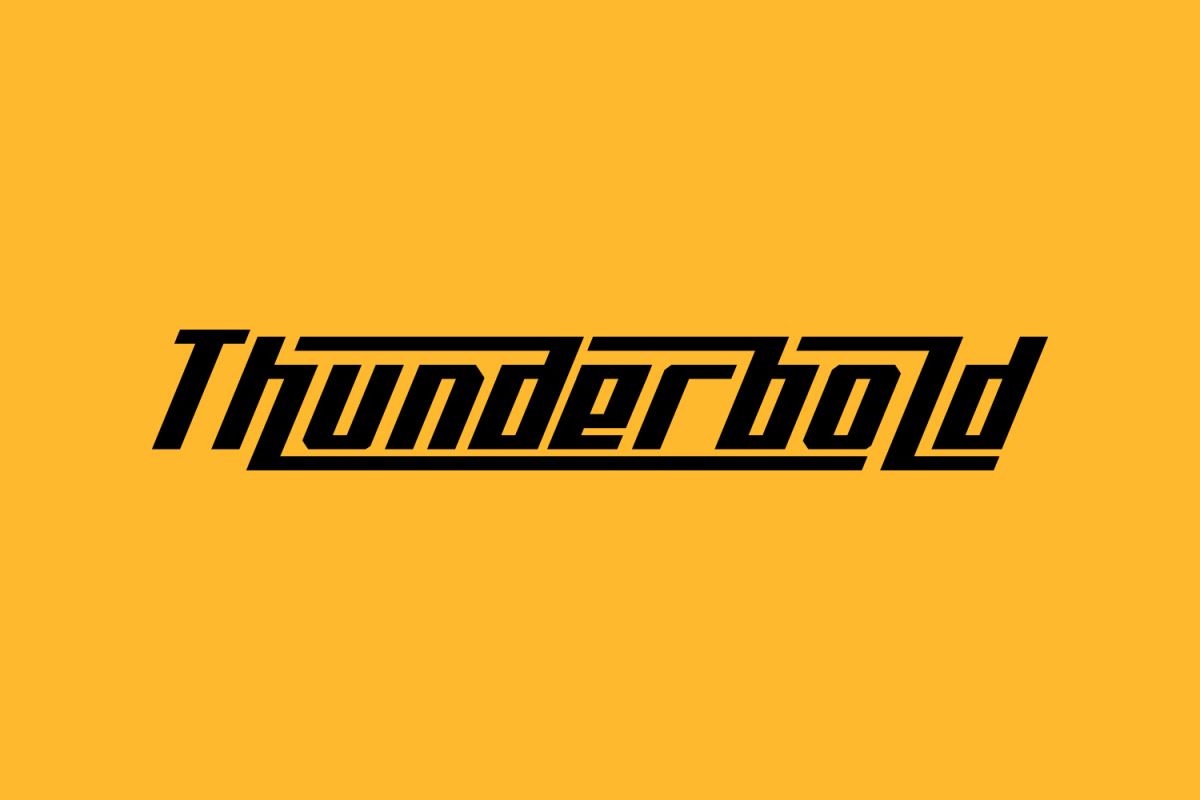
Thunderbold
Thunderbold is a powerful font suitable for poster, banner, flyer, race number, logo, logotype and more. Thunderbold have a lot of Alternate too. Be bold like Thunder !